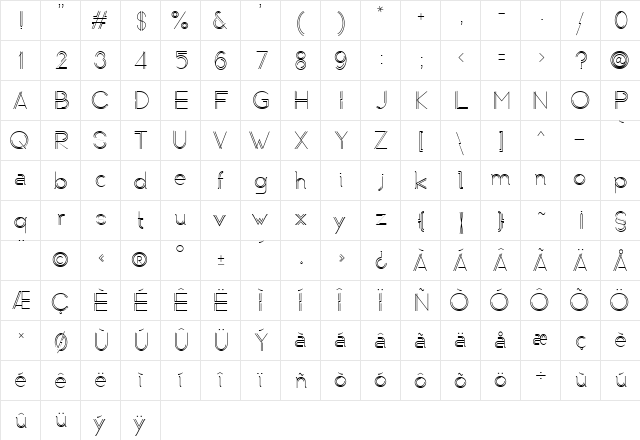
Typoliner-RW Light Regular
| Designer | RaphaѬ Wittmann |
Design Context for Typoliner-RW Light Typeface
Typoliner-RW Light is a composed and adaptable typeface that performs quietly and consistently across a wide range of design contexts. Its slender proportions lend an understated elegance to any composition.